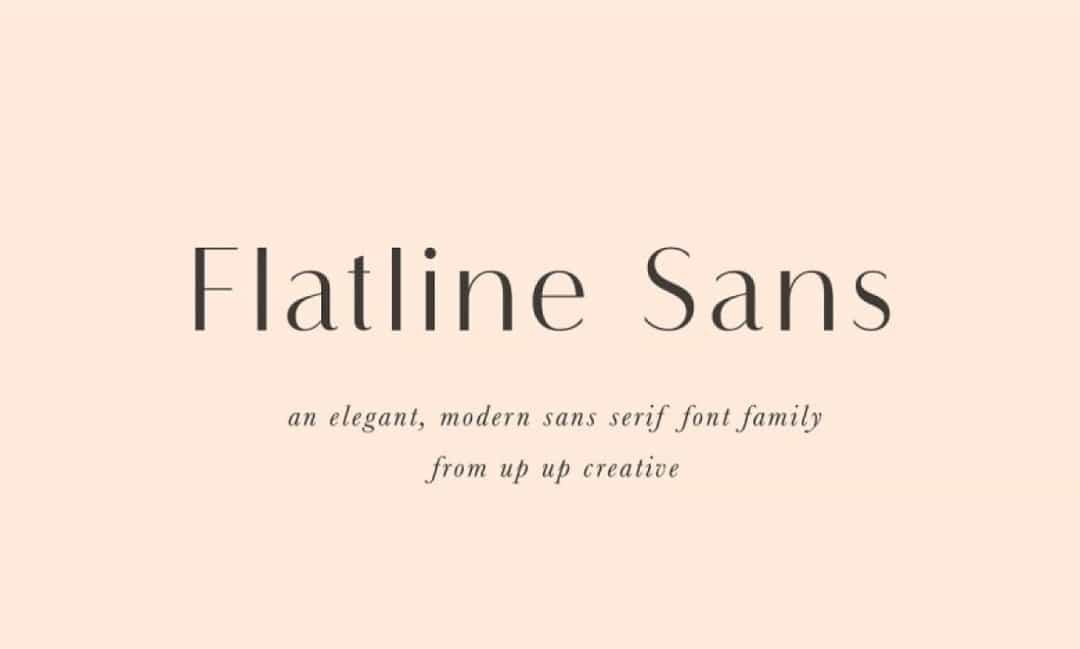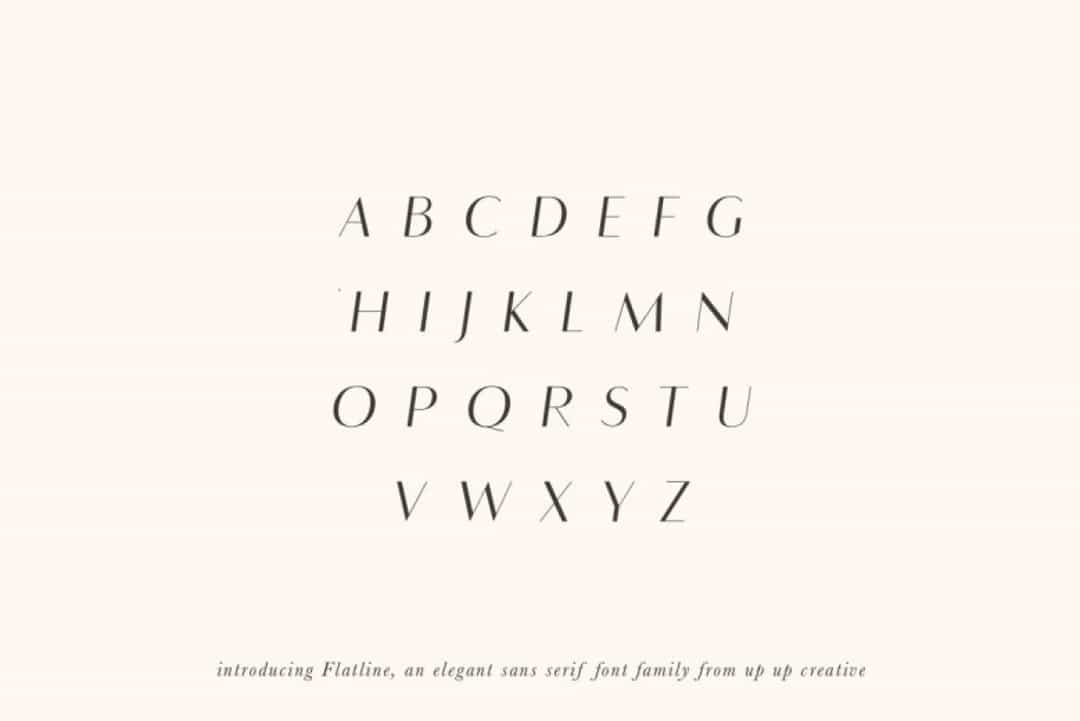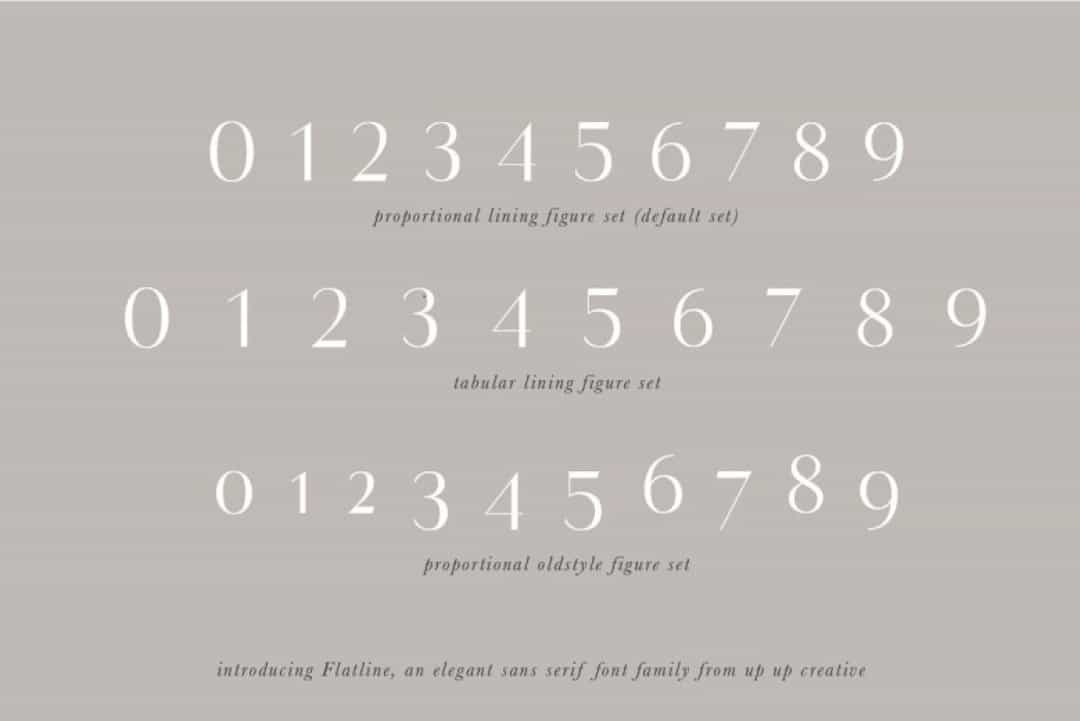
Flatline Sans is an elegant and modern sans serif font family that uses thick and thin strokes in perfect contrast, creating beautiful letters despite their basic form. Perfect for editorial use as well as advertising projects; makes stunning wedding invitations or logos!